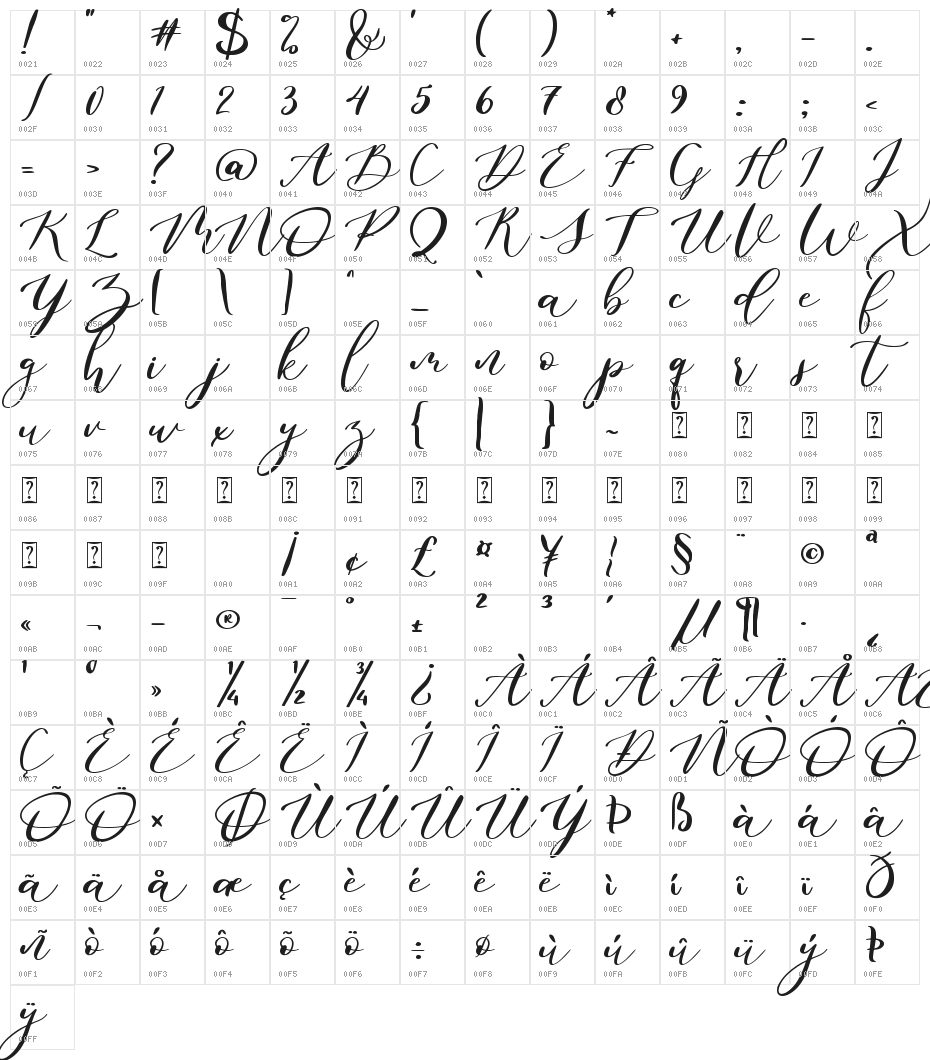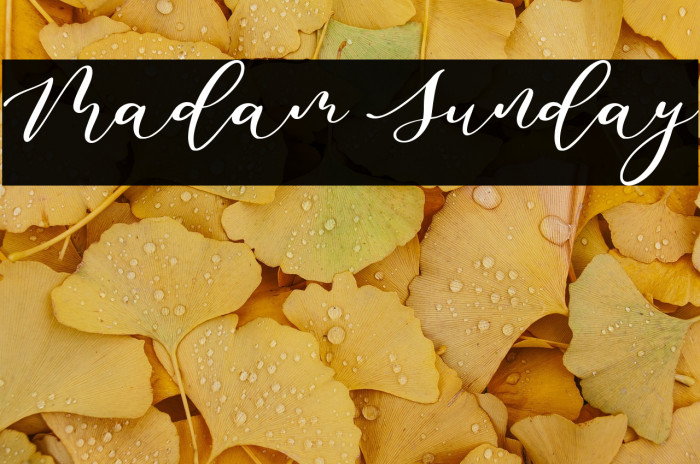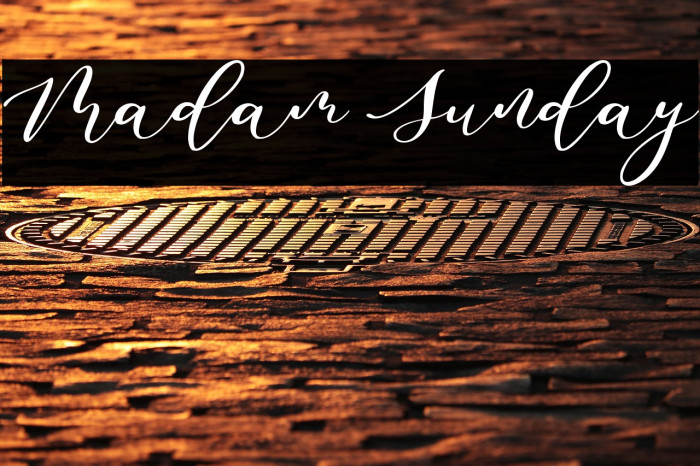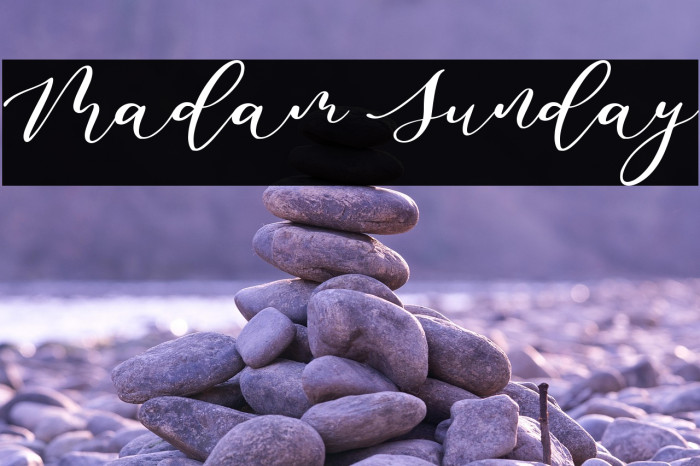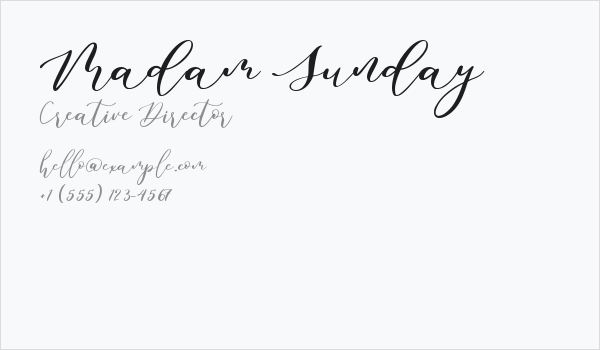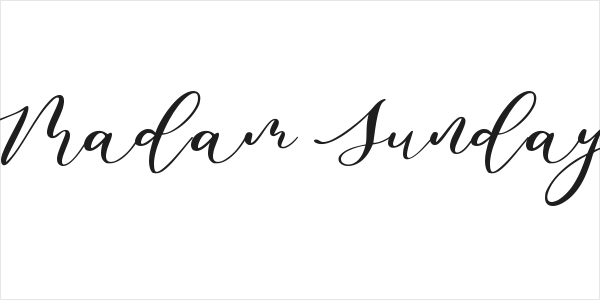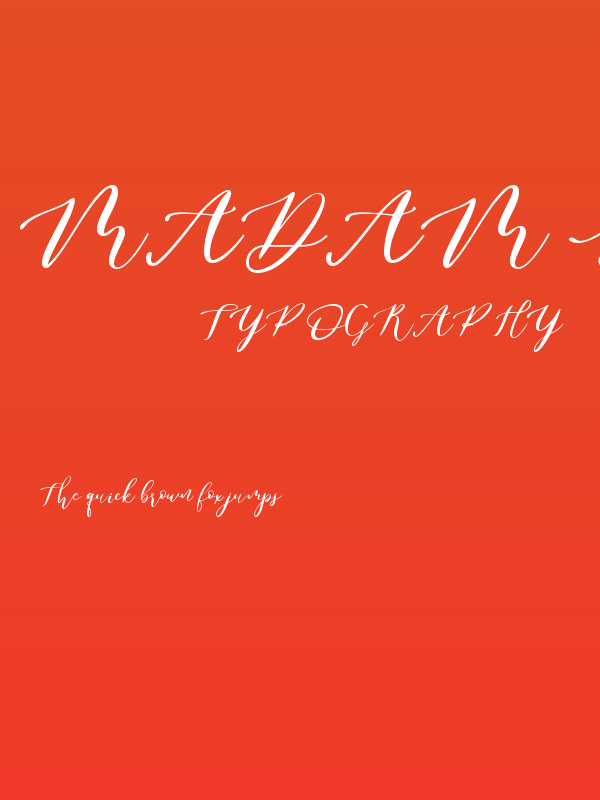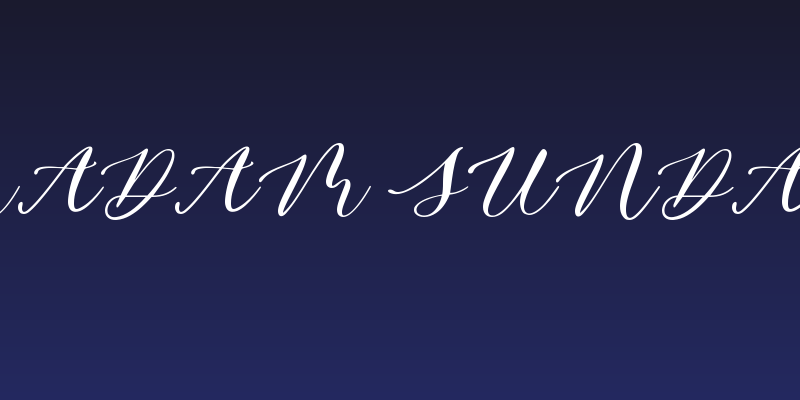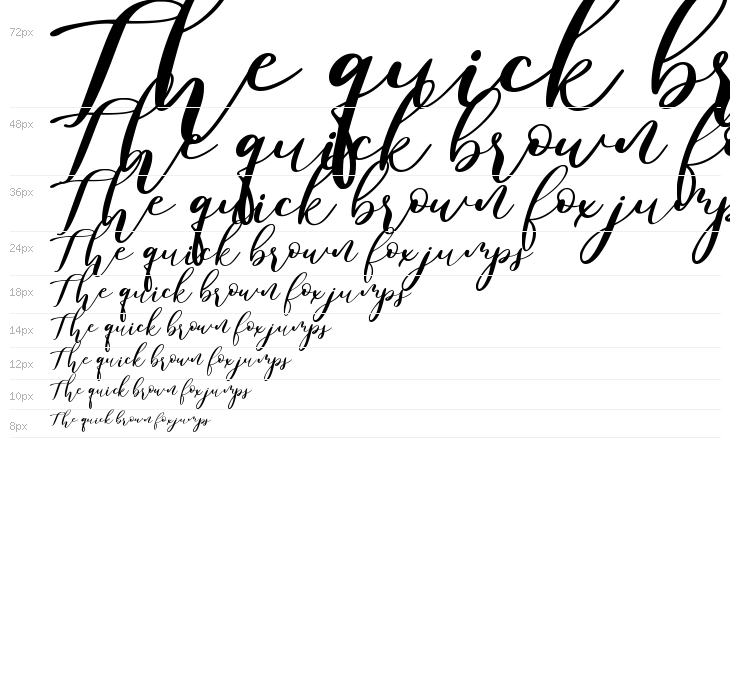
Madam Sunday Font
Madam Sunday Description
This font features an elegant and flowing script style, characterized by its cursive and connected letterforms. The uppercase letters exhibit graceful loops and swashes, while the lowercase letters maintain a consistent fluidity, enhancing the overall aesthetic. The numerals are designed with a similar flair, ensuring cohesion across all characters. The special characters complement the script style, adding versatility for various design needs. This font's artistic nature makes it suitable for projects that require a touch of sophistication and creativity.
| Overall Style | Elegant, Decorative |
| Proposed Projects | Ideal for wedding invitations, greeting cards, branding, and elegant logo designs. |